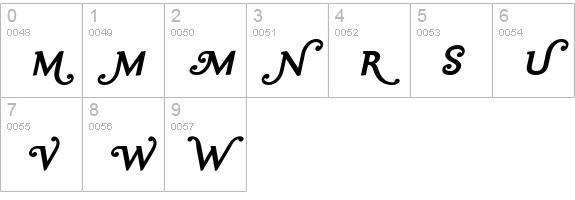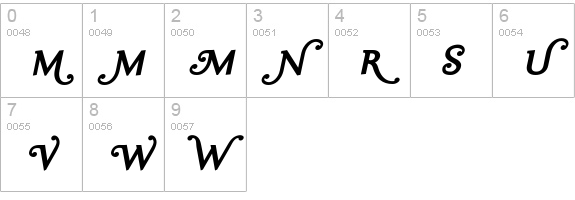
Ela Swashes XeBold Italic PDF is a distinctive, italic variant in the Ela typeface family \xE2\x80\x94 well suited to design and typography projects.
Ela Swashes XeBold Italic PDF font is a stunning and elegant typeface that exudes sophistication and style. With its intricate swashes and bold italic design, this font is perfect for adding a touch of luxury to any project. Whether you're designing invitations, logos, or branding materials, Ela Swashes XeBold Italic will make your text stand out and leave a lasting impression. The best part is that this beautiful font is available for free download at FontsMarket.com, making it accessible to all designers and creators looking to elevate their work with a touch of elegance. Don't miss out on the opportunity to enhance your designs with the timeless beauty of Ela Swashes XeBold Italic PDF font. Download it today and let your creativity shine!